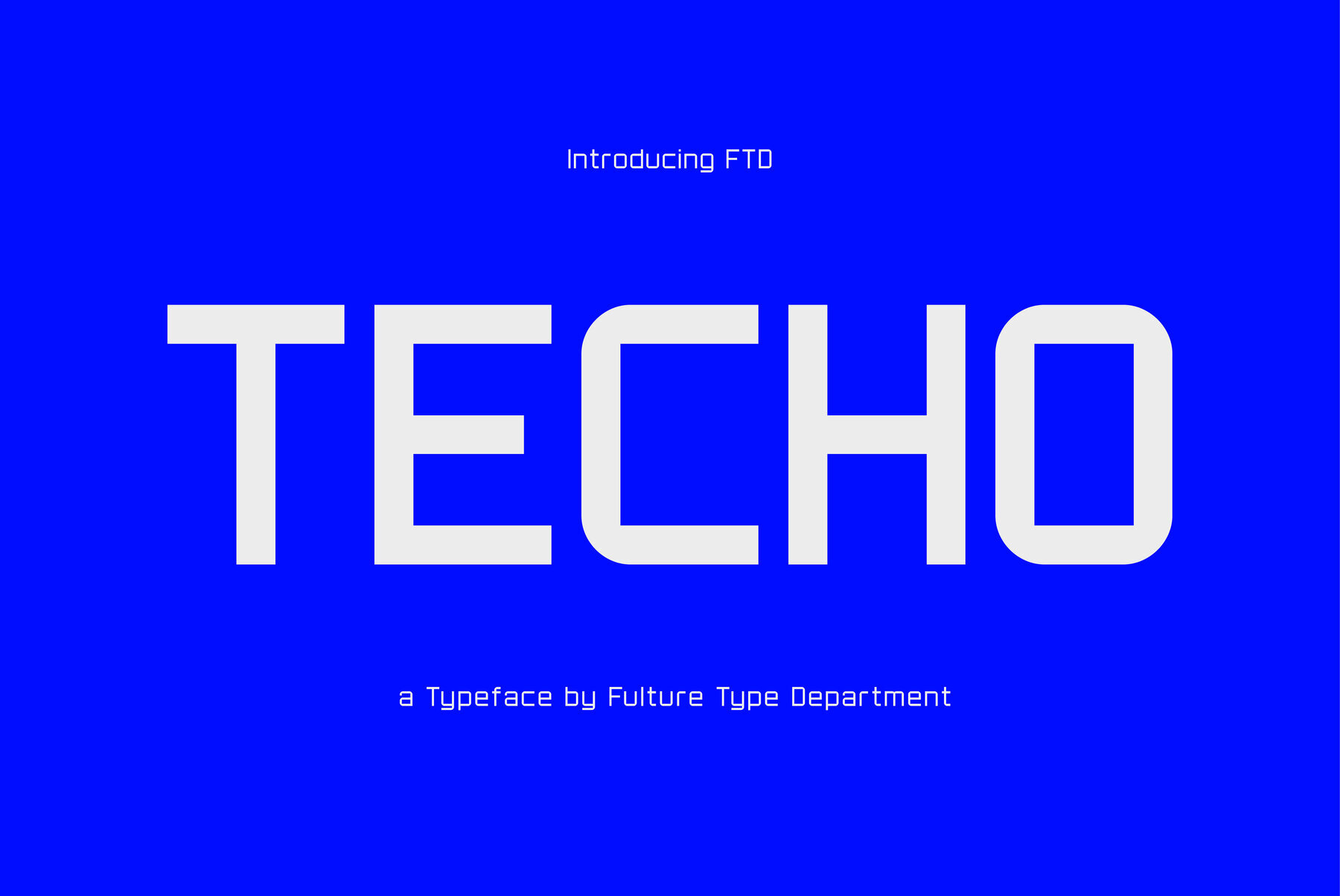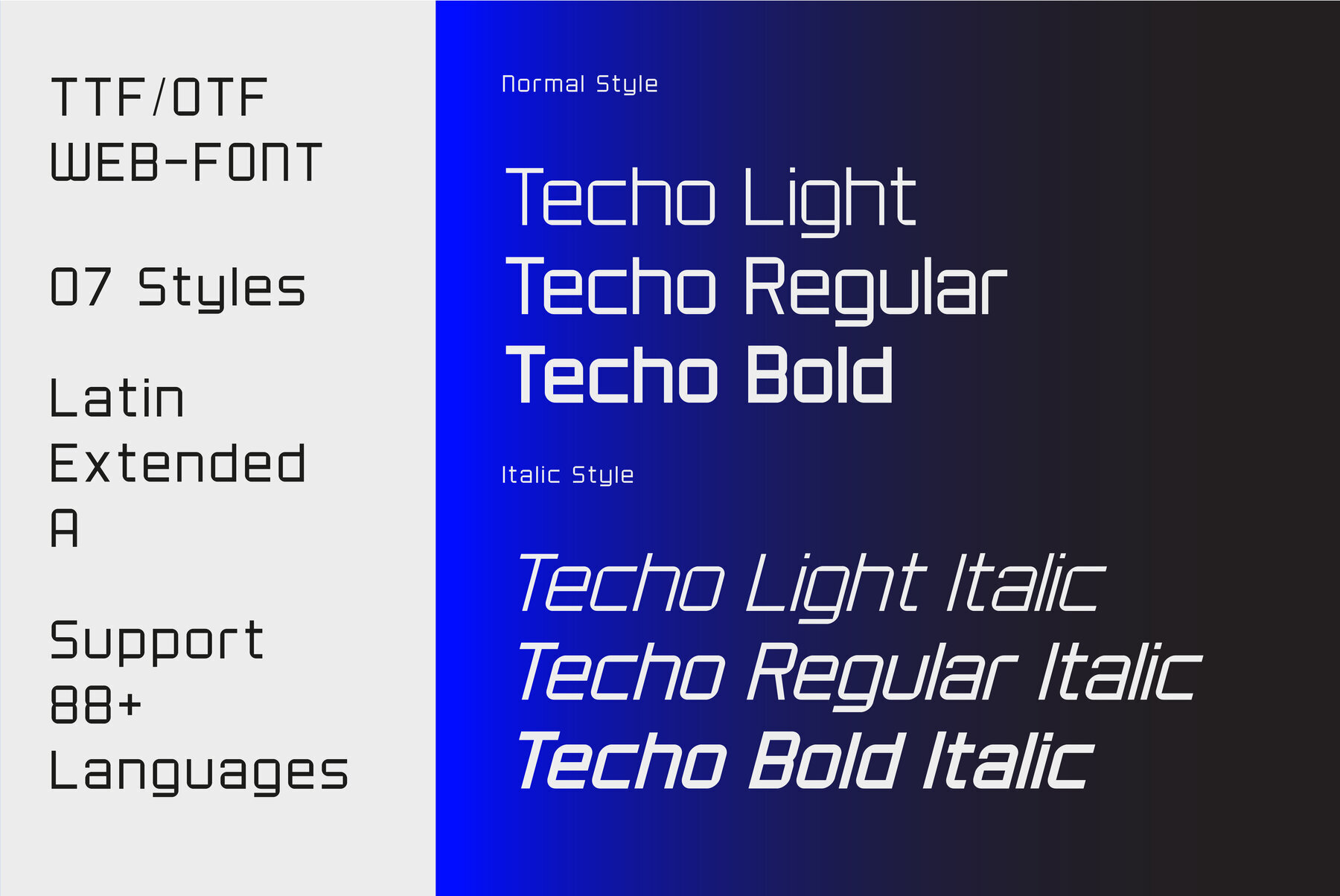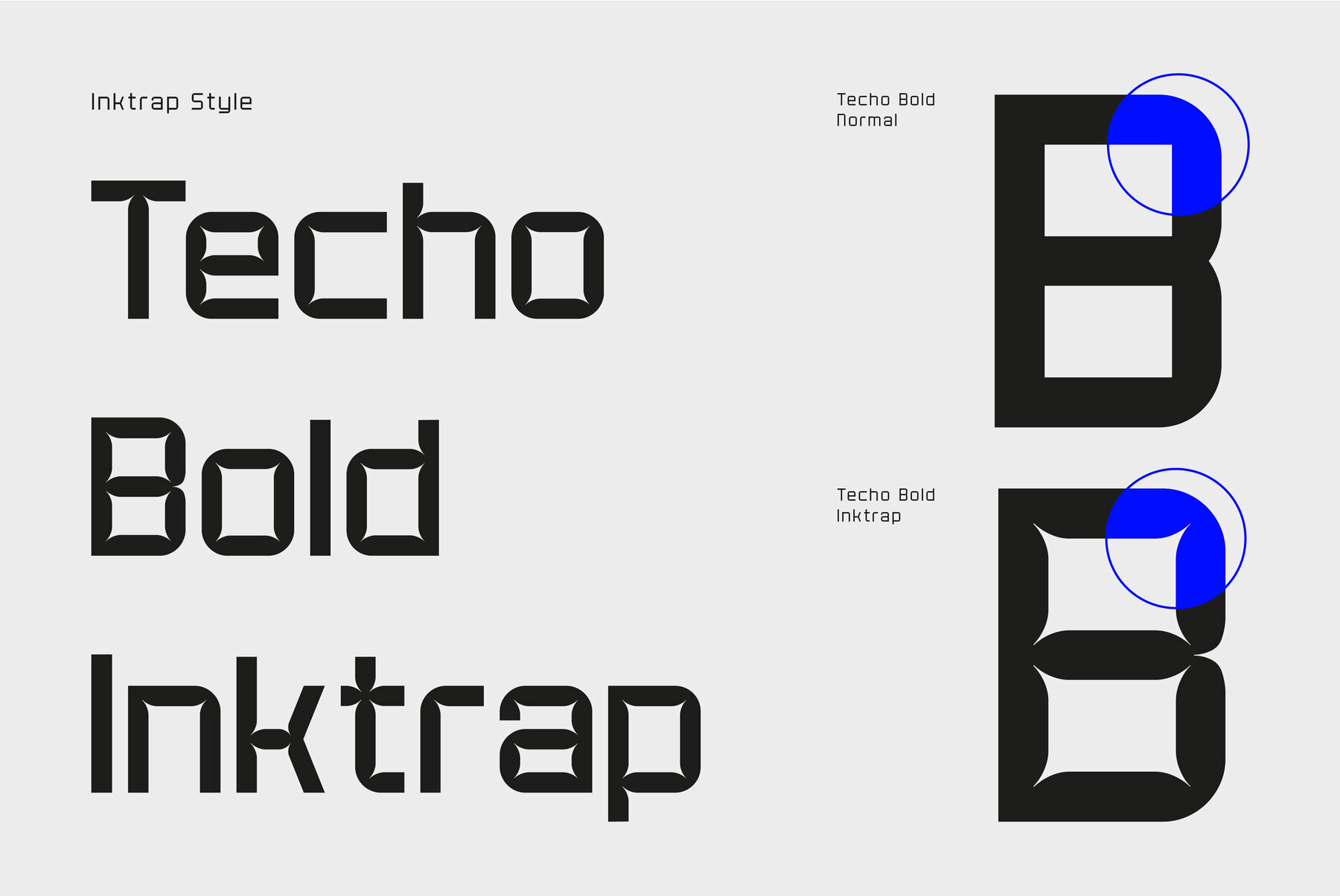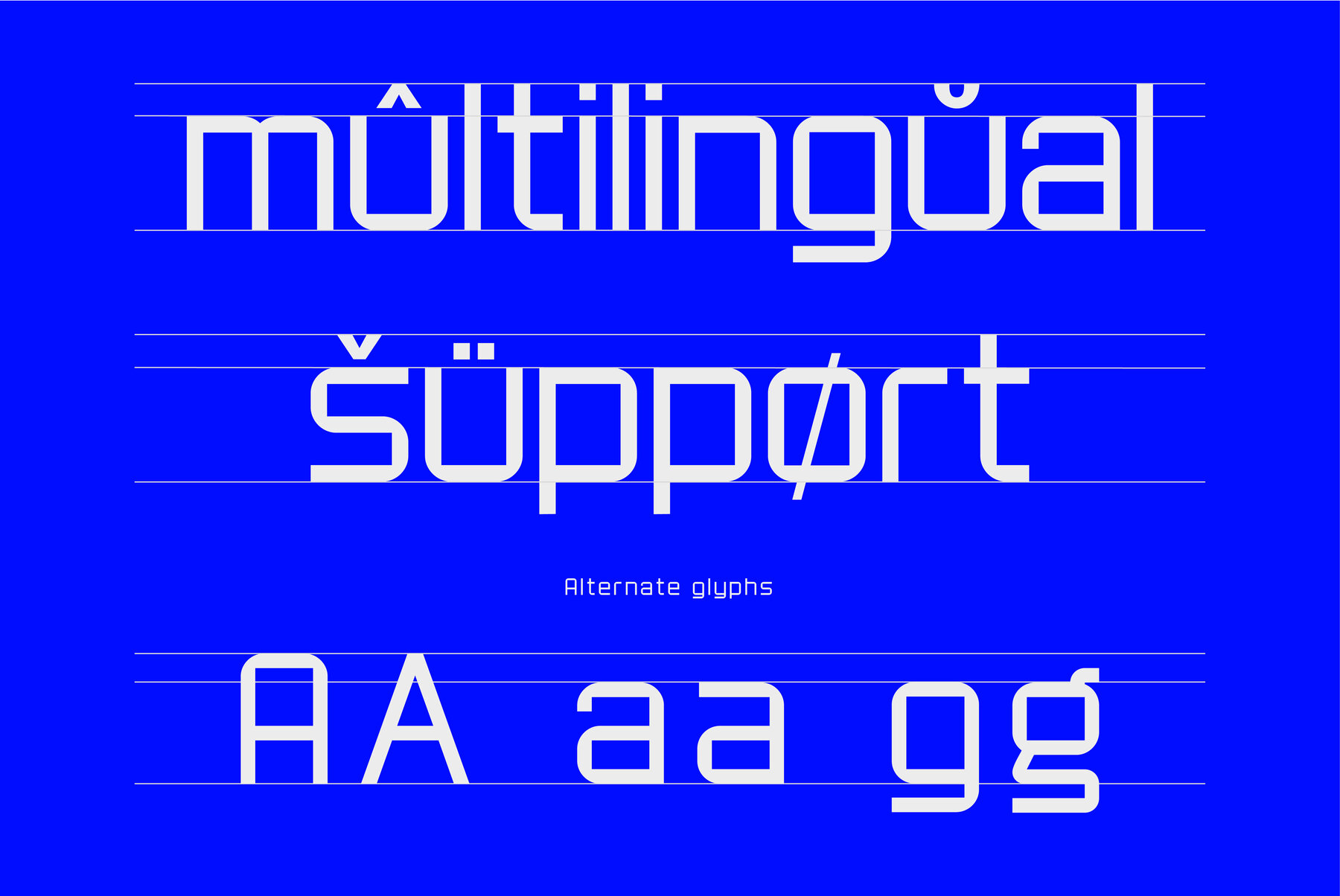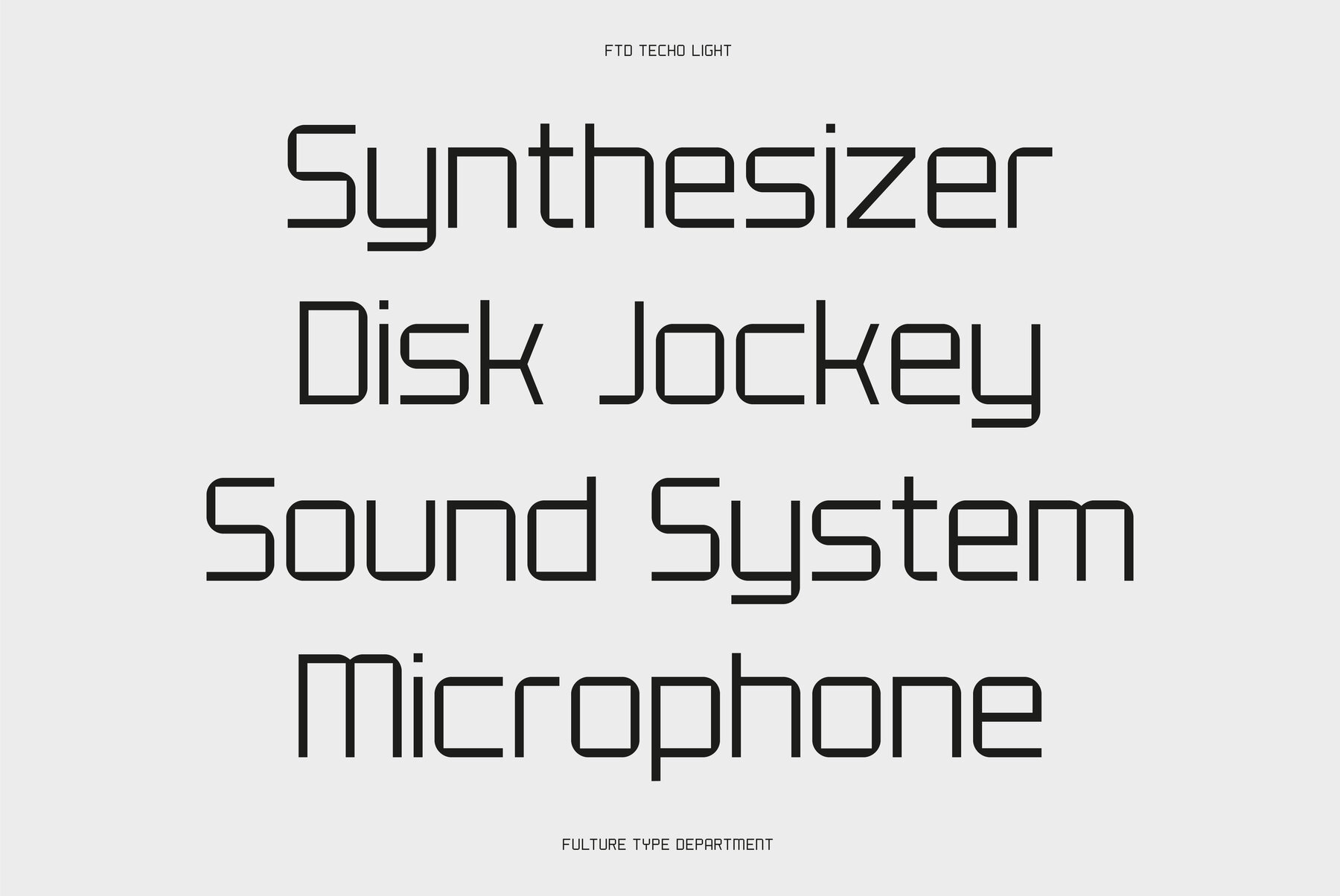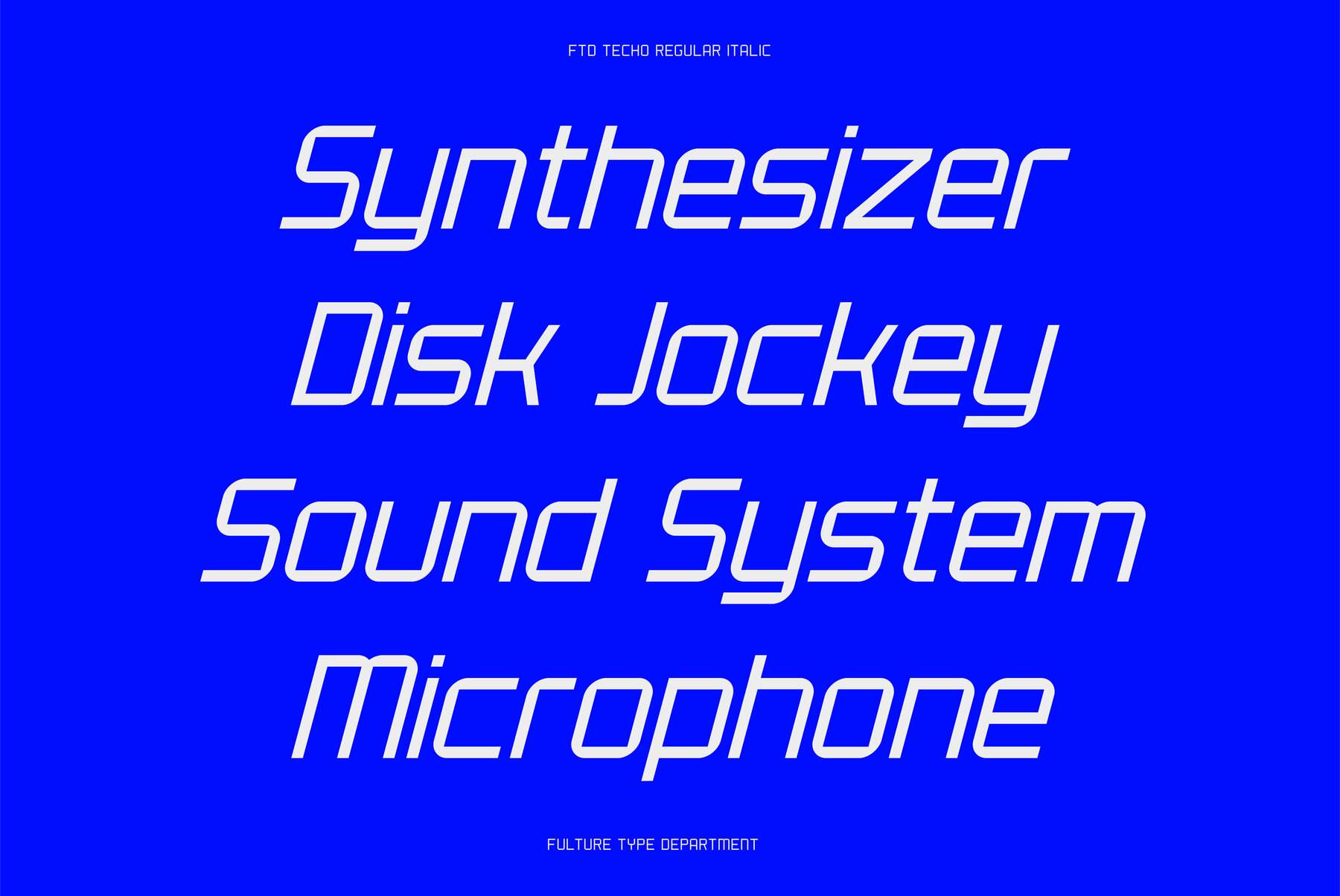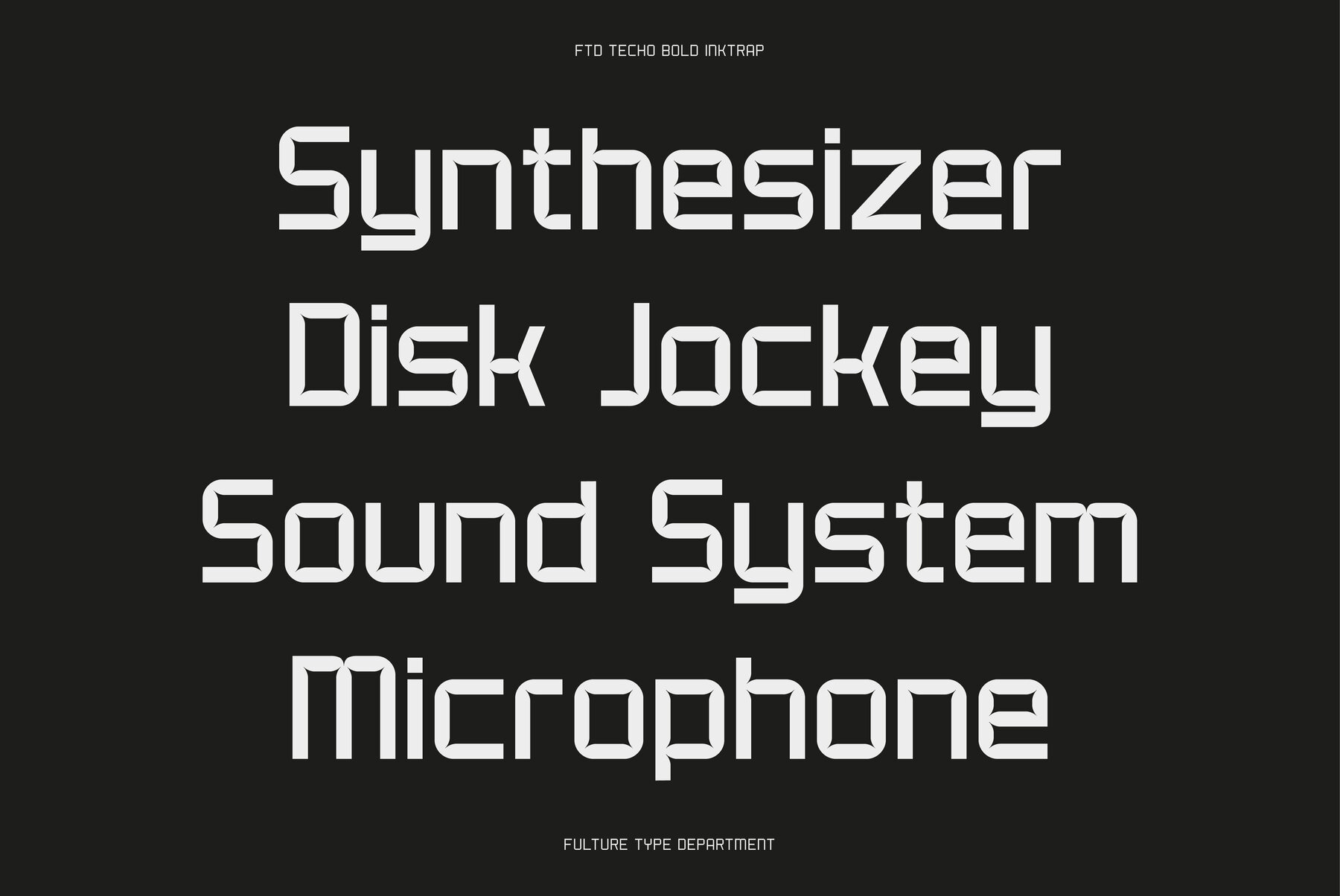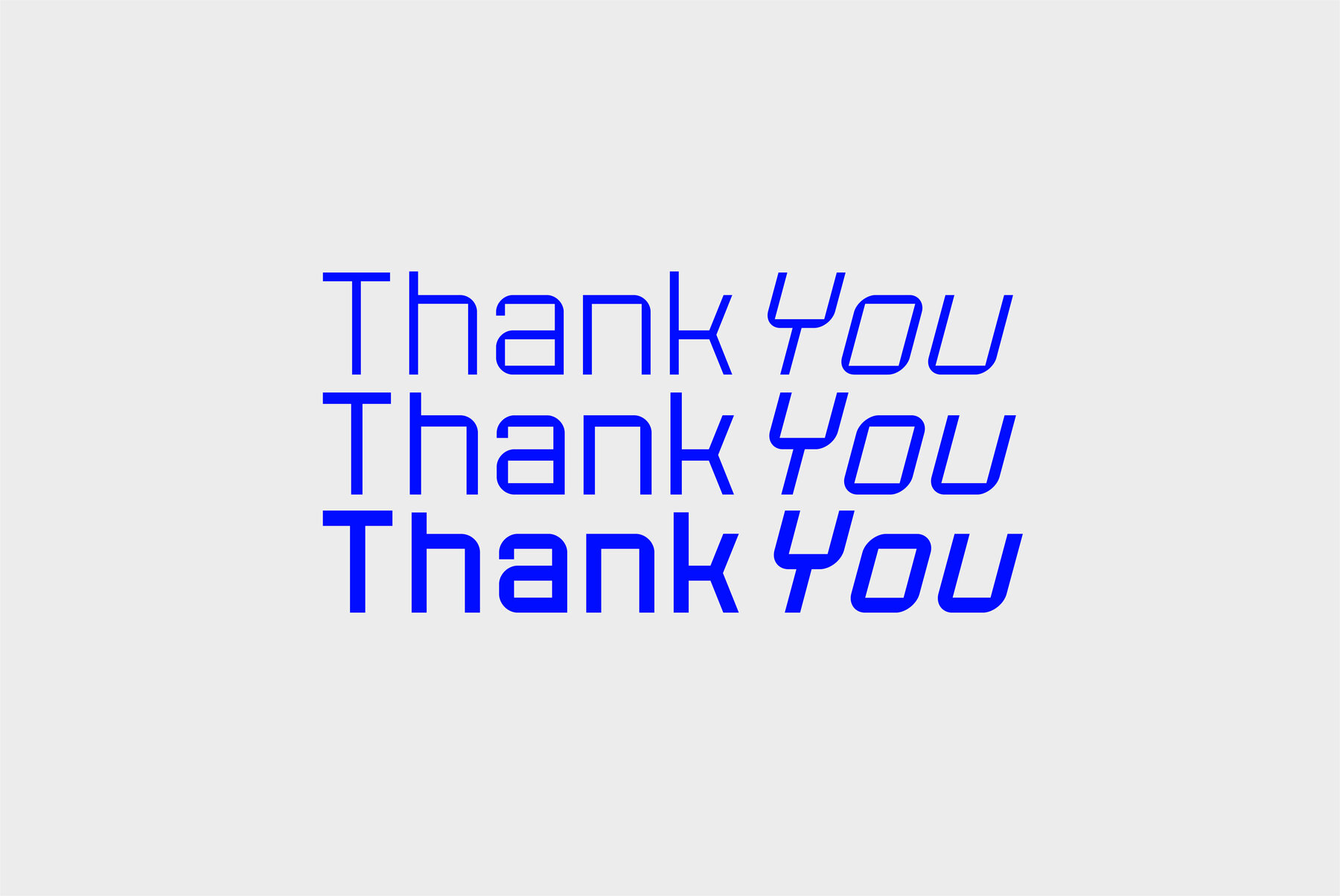
TECHO Font
FTD Techo draws its inspiration from the dynamic world of technology, capturing the essence of gaming, electronics packaging, and iconic tech branding. This font is designed to complement a variety of projects, making it an excellent choice for short body text, eye-catching displays, and brand identity, particularly in tech-centric contexts. Features:Tech-Inspired Typography: FTD Techo